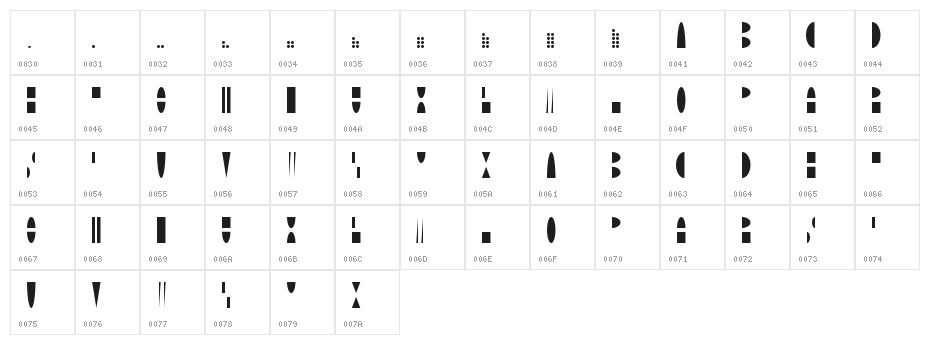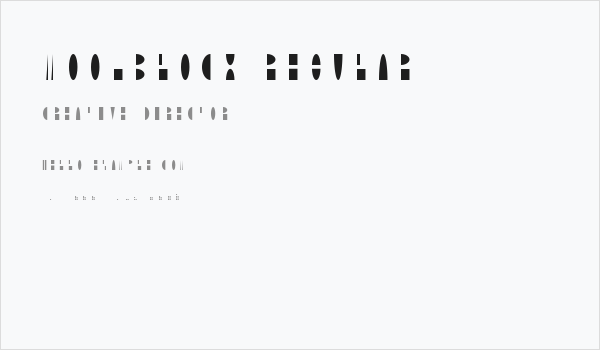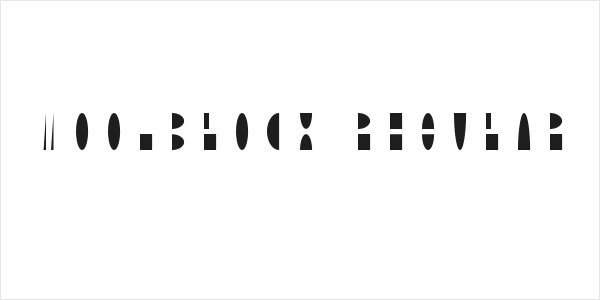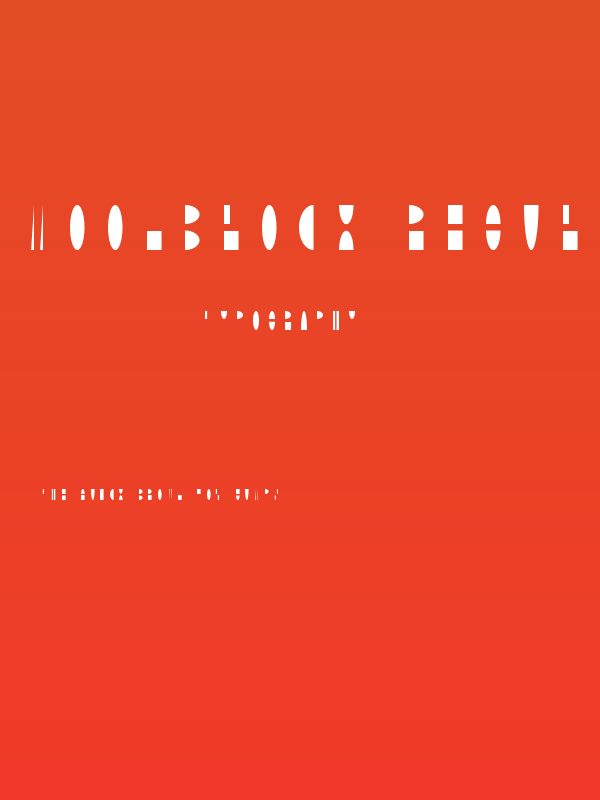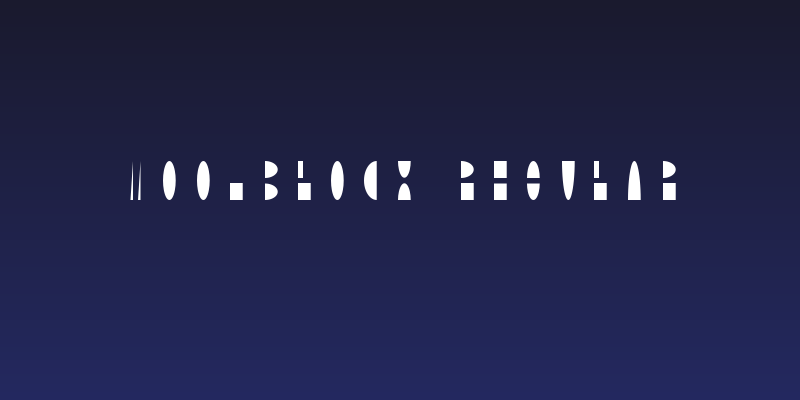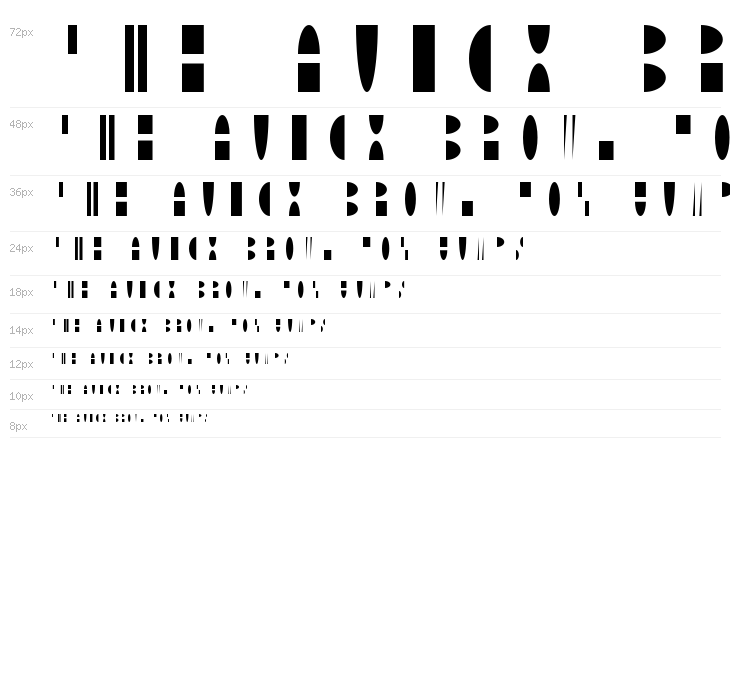
Moonblock-Regular Font
| Anwendungsfall | Logos, Headlines, Posters |
| Vorgeschlagene Projekte | Ideal for use in modern branding, futuristic designs, posters, and digital media where a strong visual impact is desired. |